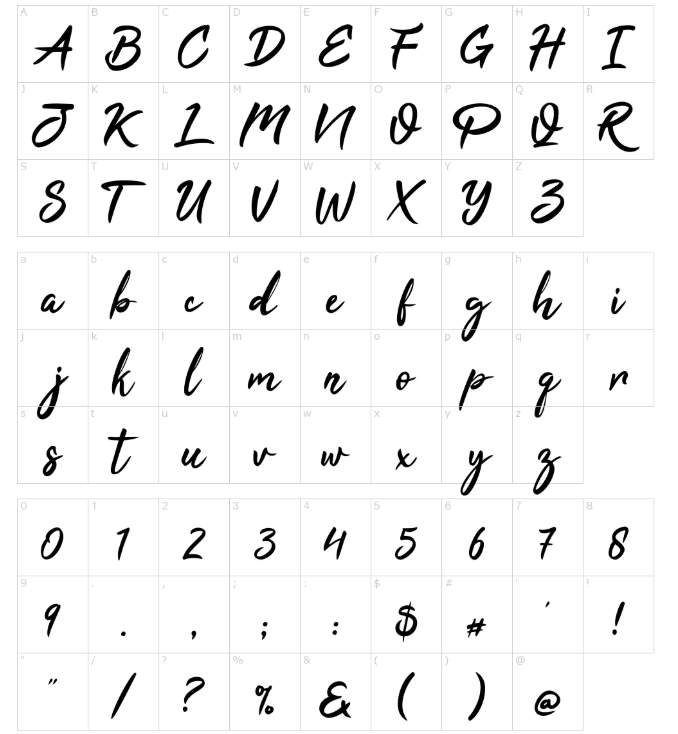
Tahu Font showcases a modern, handwritten design and is one of the most popular fonts used today. With its elegant brush strokes, Tahu is widely used for branding purposes, social media graphics, and other creative endeavors.
As is clear from its use, typography is essential to any brand’s visual identity, and Tahu’s use will add a modern and personal touch to any design. Its simplistic and graceful design is appealing to many designers who wish to make a bold fashion statement.
What is Tahu Font?
Tahu Font is a fresh brush script typeface created to add an artistic yet effortless flair to creativity. It embodies the effortless sophistication of a handwritten signature. Tahu Font is fantastic for contemporary design endeavors with its strikingly modern look and bold, clean edges.
This font has profoundly changed the landscape of graphic design, affecting styles in branding, fashion, and web design for years.
Key Features of Tahu Font
The Tahu Font is the perfect choice for unique, versatile design needs, with its diverse features outlined.
Modern Handwritten Style – The design boasts elegant strokes and a brush-like style that resembles handwriting, adding an artistic touch to designs.
Versatile & Minimalist – Is suitable for multiple creative works from logos to social media posts.
Bold & Smooth Lettering – Tahu font is very readable due to its bold, sleek letterforms that are smooth and fluid.
Perfect for Branding – Widely used by fashion, beauty, and lifestyle brands that want to modernize their image.
Applications of Tahu Font
Tahu Font is versatile and adaptable, making it suitable for a wide array of design projects. Here’s how it can be used effectively:
- Branding & Logo Design: Ideal for brands looking to convey a modern, elegant identity.
- Social Media Graphics: Perfect for Instagram quotes, banners, and influencer content that requires a personal touch.
- Merchandise & Apparel: Commonly used on T-shirts, bags, and custom accessories for stylish branding.
- Web & UI Design: Adds a creative, modern element to website headers and digital content.
- Invitations & Stationery: Enhances the elegance of wedding invitations, event cards, and personal stationery.
- Advertising & Marketing: Used in posters, brochures, and digital ads to attract attention with stylish typography.
Alternatives to Tahu Font
If you’re looking for fonts similar to Tahu, here are a few alternatives that offer a comparable brush script vibe:
A bold monoline script font with retro aesthetics. It’s slightly heavier but maintains a hand-lettered look.
2. Brusher
Another free brush script that features a more textured and rough style compared to Tahu’s clean lines.
3. Selima
Selima is slightly more whimsical and artistic—great for those looking for more expressive lettering.
4. Buffalo
Buffalo has similar bold strokes and is excellent for logo or display purposes.
A premium font that offers a sophisticated take on modern calligraphy, with decorative swashes and alternates.
Conclusion: Tahu Font
Tahu Font caters to the perfect blend of old with the new, which makes it suitable for contemporary design projects, and its handwritten style gives a sense of class and sophistication that is unmatched, making it an excellent choice for branding, social media graphics, and even invitations. Tahu Font is a suitable choice for all types of professionals, be it marketers, graphic designers, or creative artists.